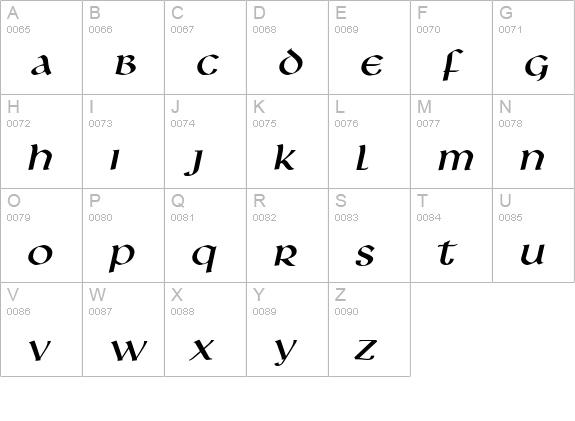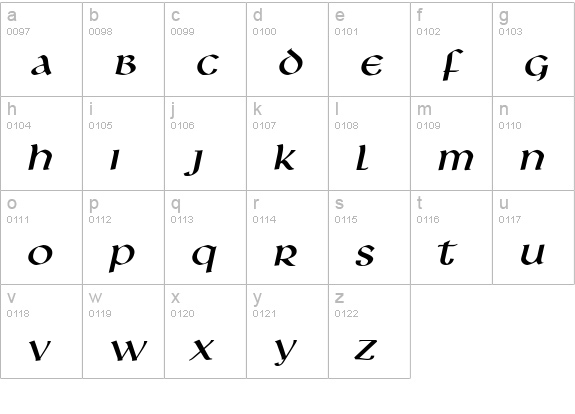
Leo Wide Italic is a distinctive, extended-width, italic variant in the Leo typeface family \xE2\x80\x94 well suited to design and typography projects.
Leo Wide Italic is a visually striking and modern font that effortlessly combines elegance and versatility. With its unique and wide letterforms, this font exudes confidence and sophistication while maintaining a sense of approachability. The italicized slant adds a touch of dynamism and flair, making Leo Wide Italic the perfect choice for projects that require a touch of creativity and individuality. This font offers a wide range of potential applications, from eye-catching headlines and attention-grabbing logos to stylish packaging designs and impactful social media graphics. Its wide proportions ensure maximum readability, making it an excellent choice for both print and digital mediums. One of the most remarkable aspects of Leo Wide Italic is that it is available for free download at FontsMarket.com. This means that designers, creatives, and enthusiasts alike can access and utilize this stunning typeface without any cost, allowing for unlimited creativity and exploration. Whether you're a seasoned professional or a passionate hobbyist, Leo Wide Italic is a font that will undoubtedly elevate your designs to new heights. Its bold and distinctive style, coupled with its freely accessible nature, makes it a must-have addition to any typography collection. Download Leo Wide Italic today at FontsMarket.com and unlock a world of creative possibilities.